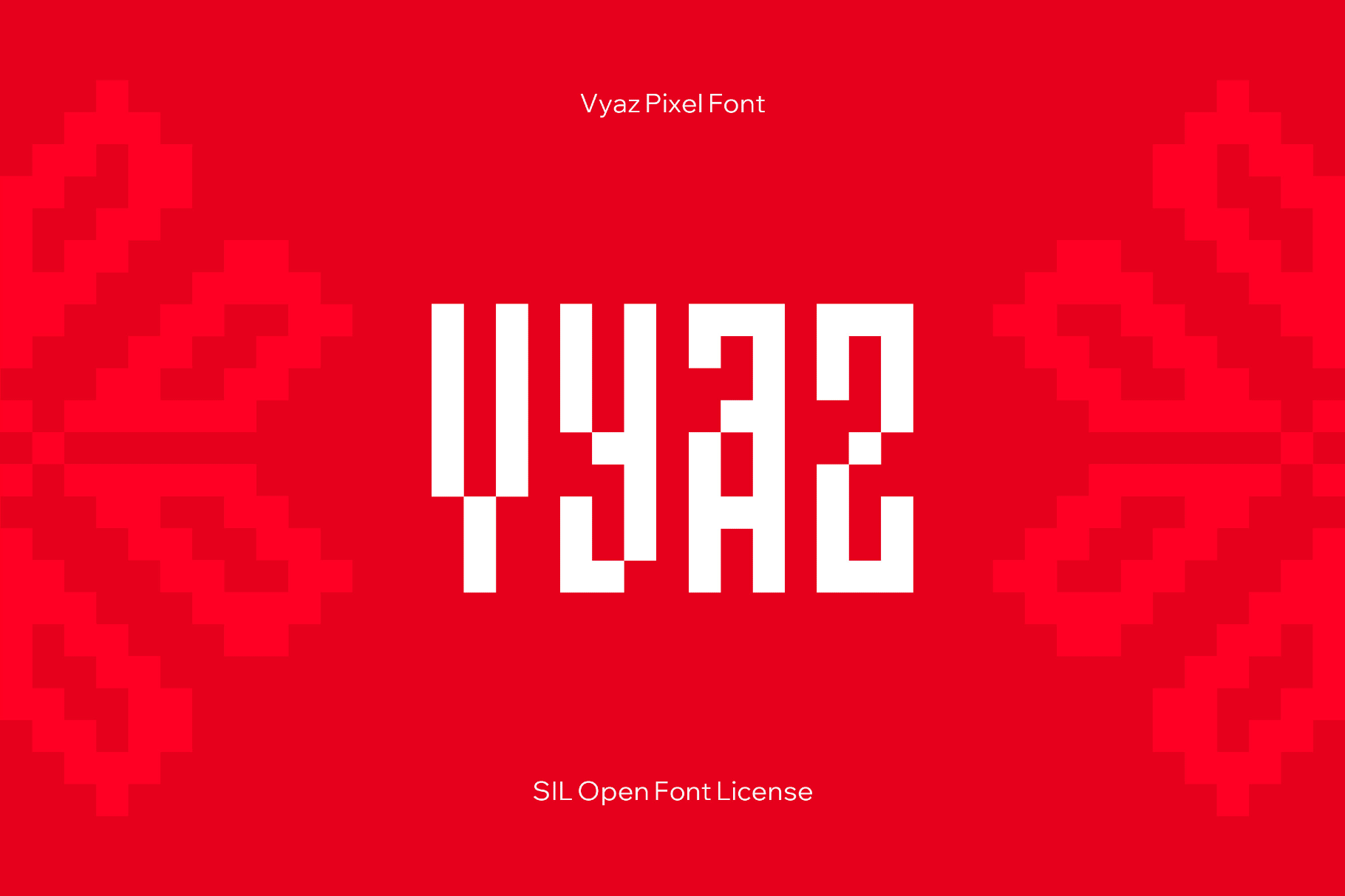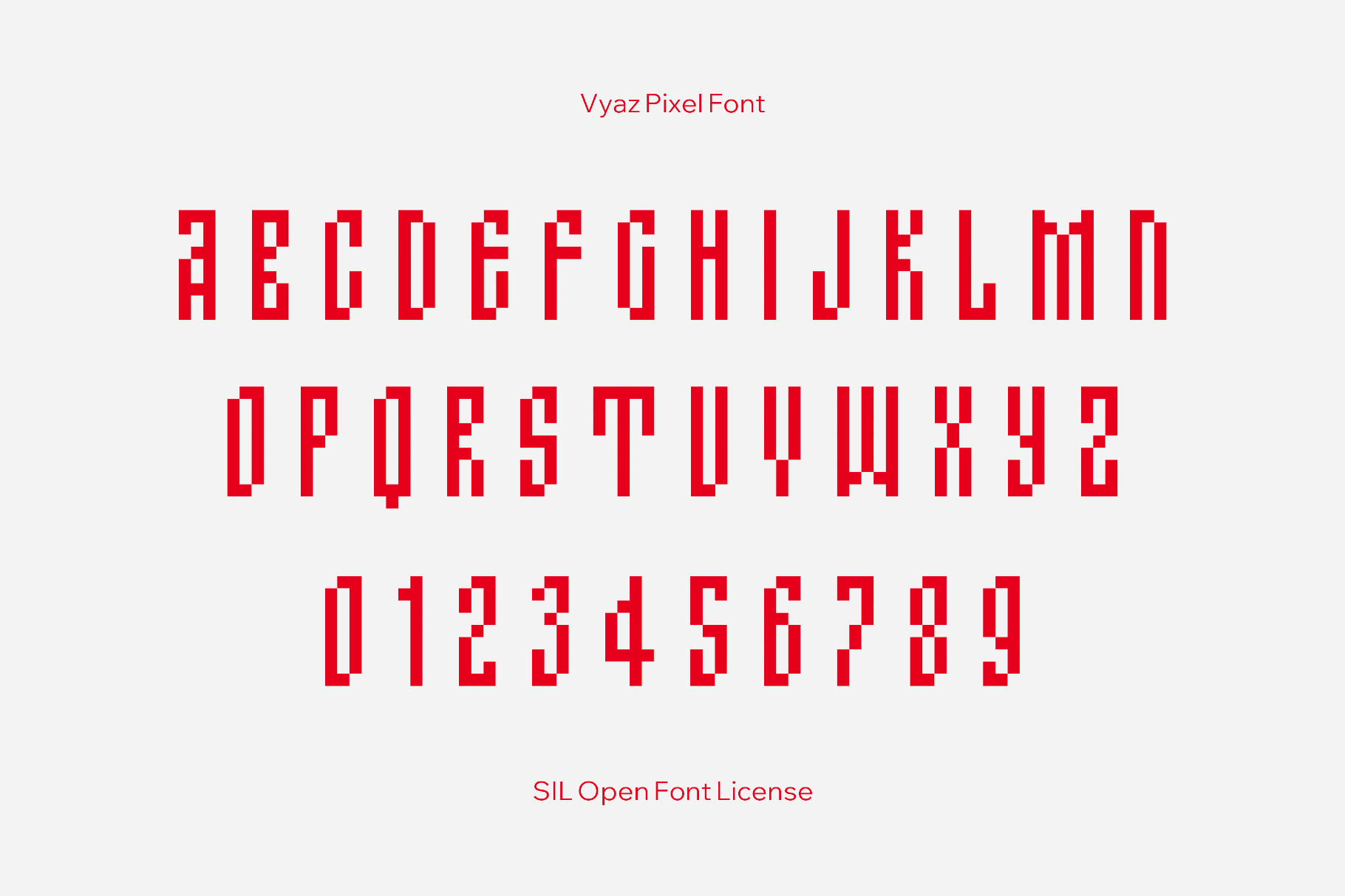
Vyaz Pixel Font
Vyaz Pixel
A blackletter-inspired font, Vyaz Pixel, turns Old Russian vyaz lettering into a compact bitmap grid. The characters weave into tall, interlocking strokes with stepped diagonals and tight verticals. This typeface suits fantasy and historical game logos, Slavic- or folklore-themed title cards, UI overlays for retro RPGs, pixel art posters, book or album covers, festival and event graphics, and stream overlays.
- Uppercase letters, numbers, punctuation, and symbols.
- Multilingual support for Latin and Cyrillic-based languages.
- Extra symbols for icons, separators, and decorative marks.